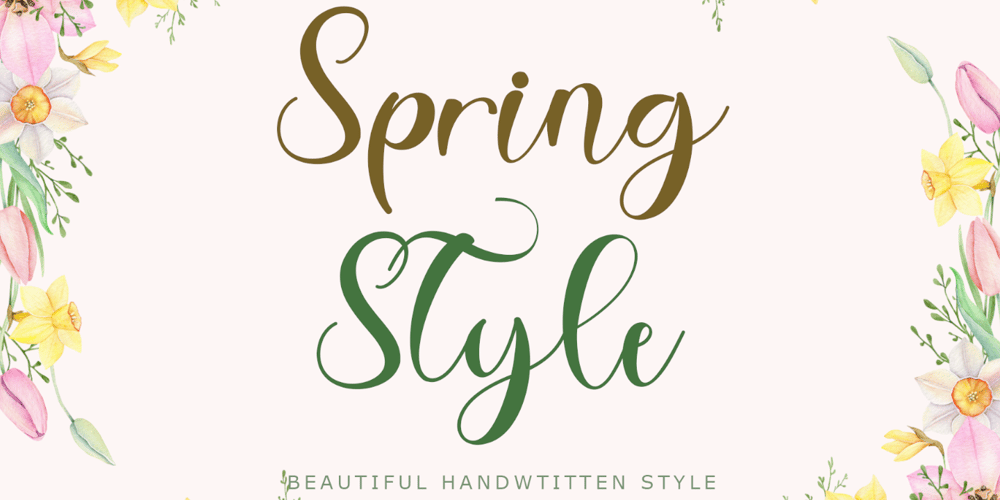
Spring Style Font Family was designed by Isroni Yoga Prasetya and published by Yoga Letter. Spring Style contains 1 styles and family package options. “Spring Style” is a beautiful handwritten font. This font is equipped with uppercase, lowercase, numerals, punctuations, ligatures and multilingual support. Very suitable for spring, summer, banners, posters, prints, banners, branding, stickers, invitations, weddings and others.